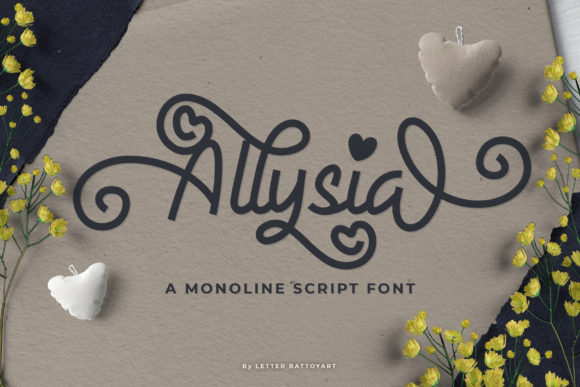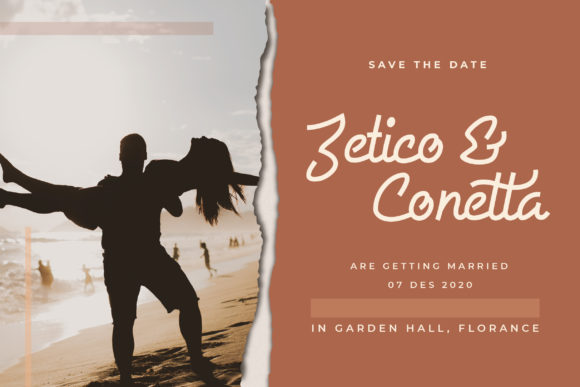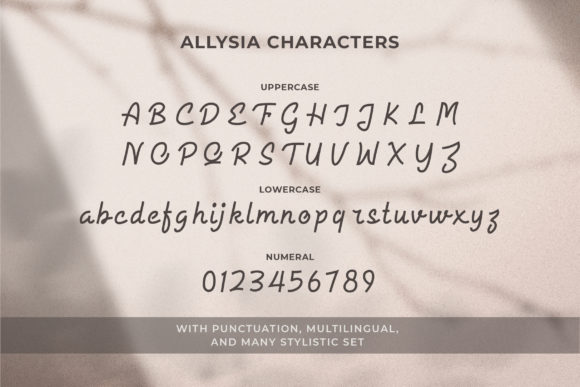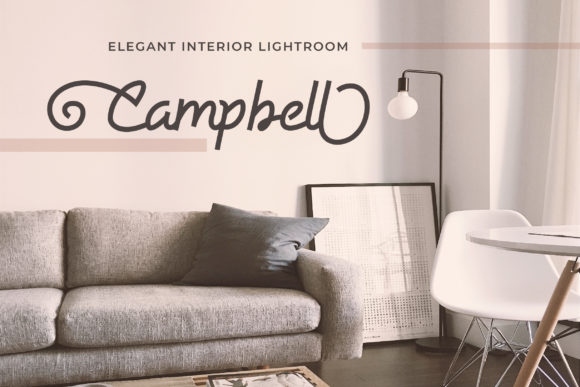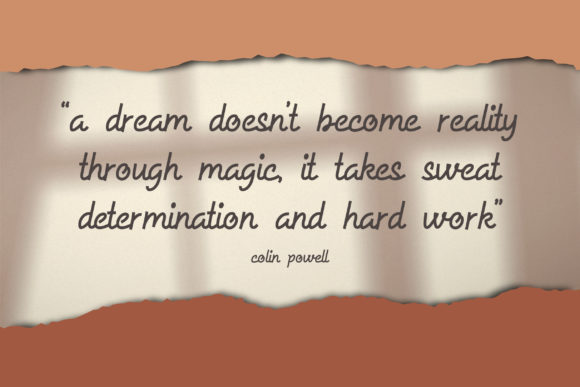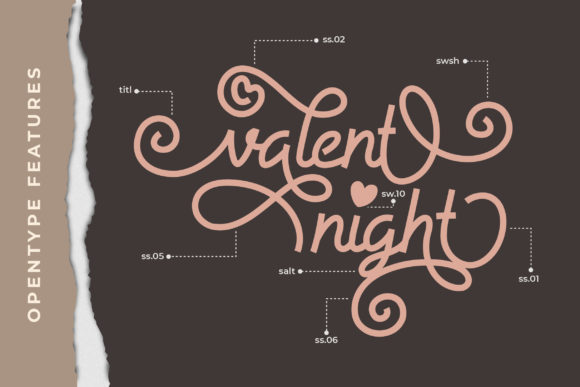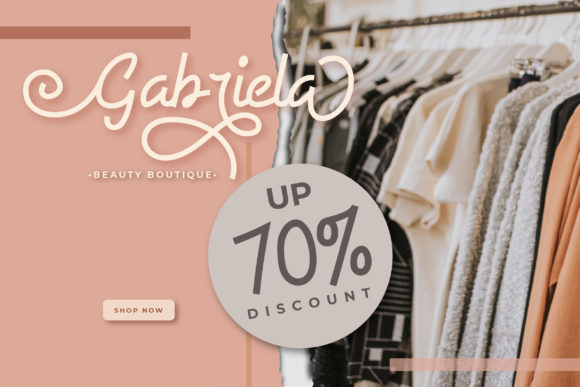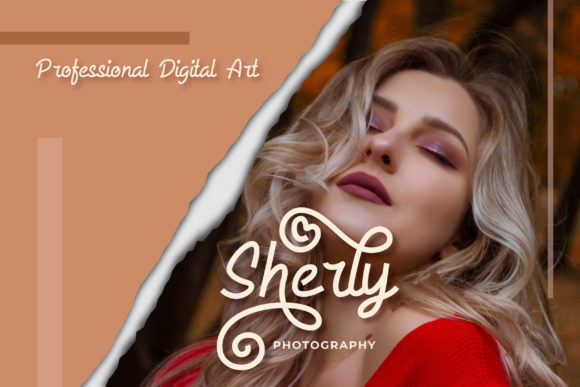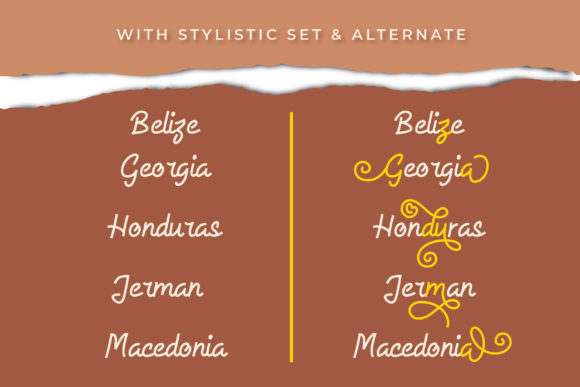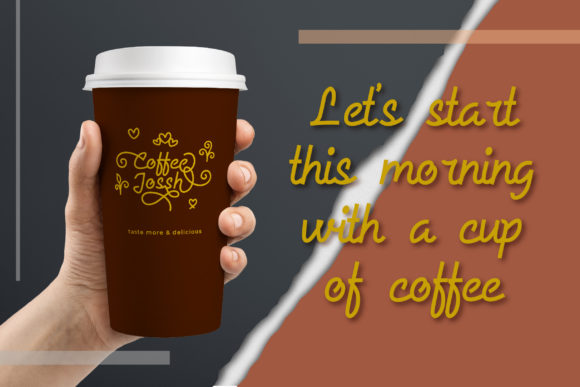
Allysia Font
About Allysia Font
Allysia is a gorgeous and bold handwritten font that will turn any design idea into a true standout. Fall in love with its playful swashes.